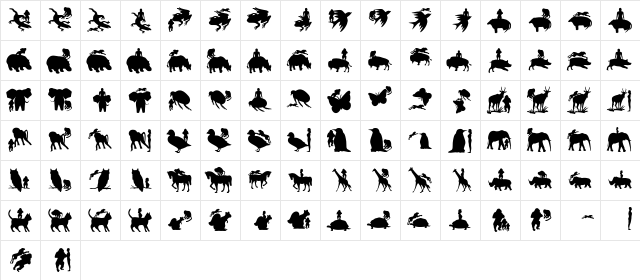
AnimalsMeetings Regular
Design Context for AnimalsMeetings Typeface
AnimalsMeetings is a composed and adaptable typeface that performs quietly and consistently across a wide range of design contexts.